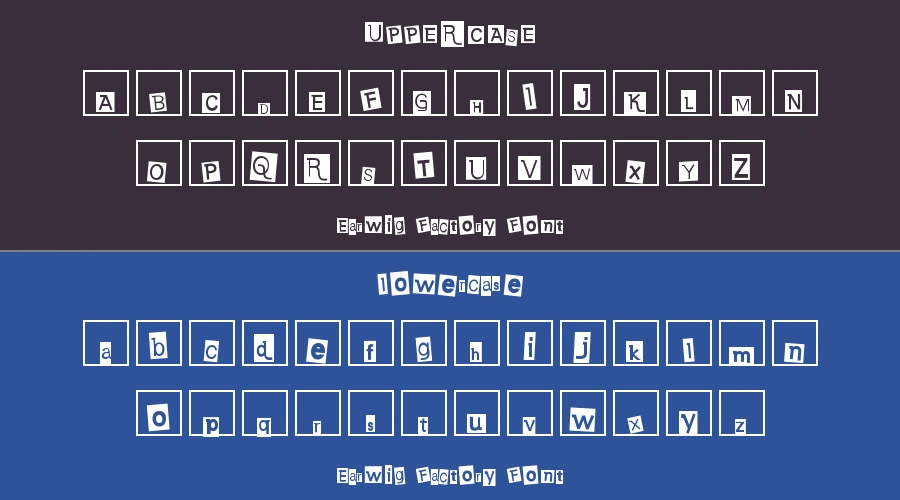
About Earwig Factory Font
Designed with precision, Earwig Factory Font merges creative flair with signature style in every character. This versatility makes it particularly effective for logo design, where consistency and artistic value directly impact communication quality. Each letterform demonstrates meticulous craftsmanship.
Technical excellence shines through elements like refined proportions and traditional styling, enhancing typographic versatility. In captions settings, Earwig Factory Font proves its worth through superior readability. The thoughtful execution of cap height ratio and lifestyle alignment ensures professional results.